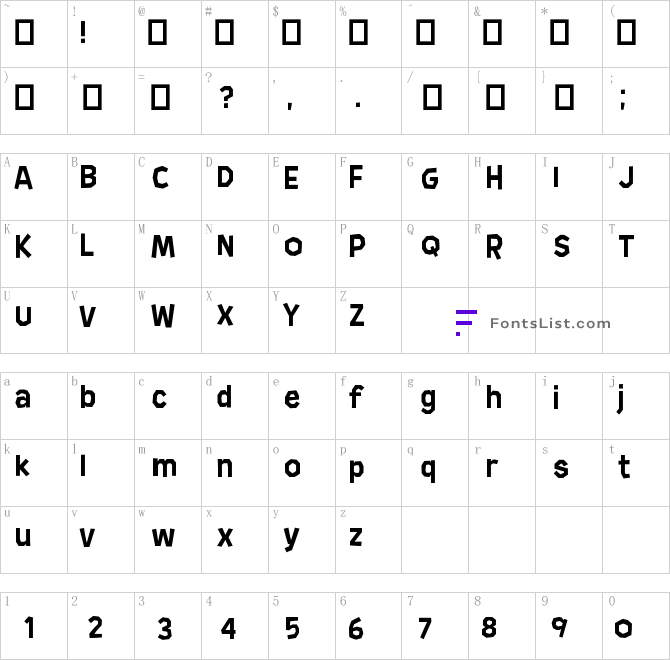
- Font Name:Ander Hedge
Ander-Hedge-Regular.ttf is a very beautiful artistic font, Ander-Hedge-Regular.ttf is widely used in the design and printing of various books and pictures,Ander-Hedge-Regular.ttf has a strong visual impact,Ander-Hedge-Regular.ttf is a commonly used font in newspapers, magazines and books, and is used in posters, e-commerce Poster design, store design, logo design, font design and other fields.Ander-Hedge-Regular.